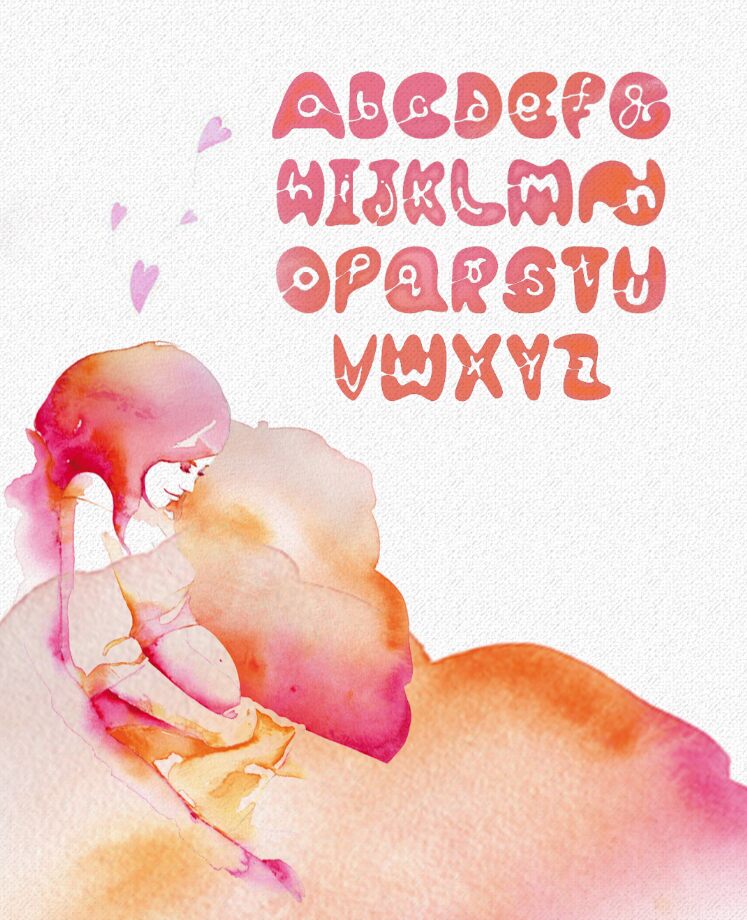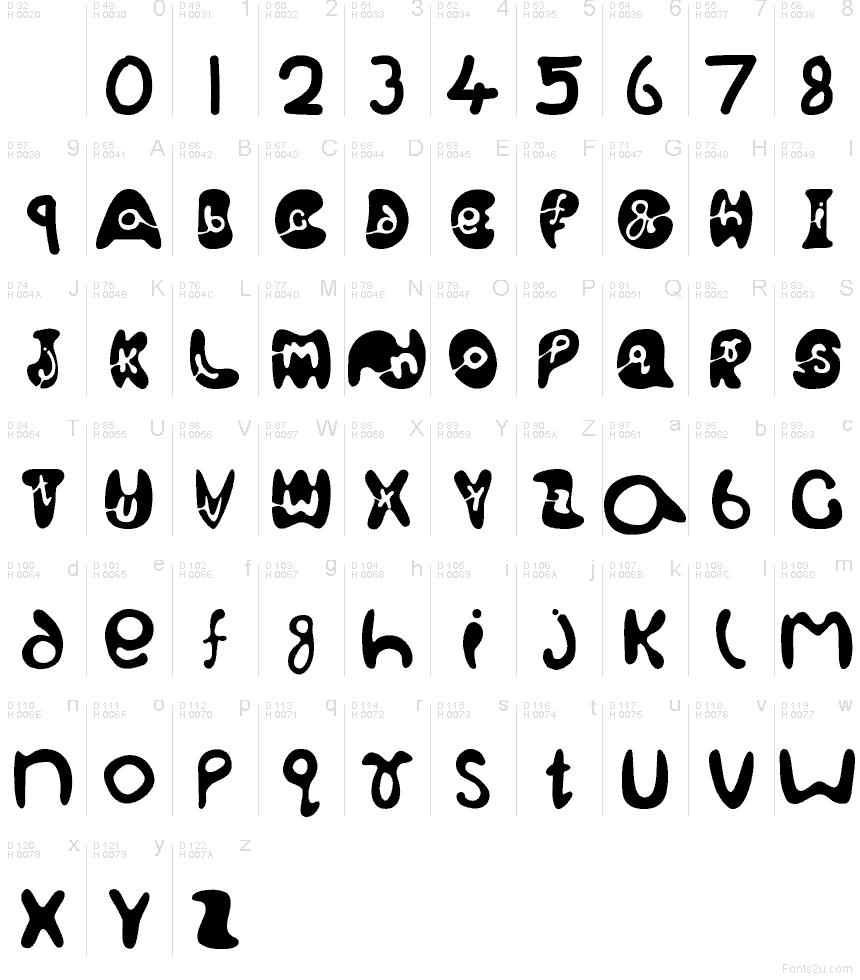
Pregna Bold Extended Caption
Pregna Bold Extended Caption font by Nandakumar Sivaprakasam of PYRS Fontlab is a free decorative display typeface with a wonderfully oddball charm. Each letter feels hand-shaped and inky, with bulbous curves, unexpected holes, and soft, blobby outlines that look almost like they’ve been drawn with a thick brush on wet paper. The extended proportions keep it airy and readable while still leaning into its quirky, organic rhythm, so your words look alive rather than typeset.
Using Pregna Bold Extended Caption, you can give instant personality to psychedelic posters, children’s branding, indie album covers, event flyers, playful packaging, and bold logo marks. This free font thrives in large sizes where its strange, fluid shapes can really breathe. Pair it with a clean geometric sans from the Pregna family or another neutral sans in smaller text to let Pregna Bold Extended Caption carry the spotlight.